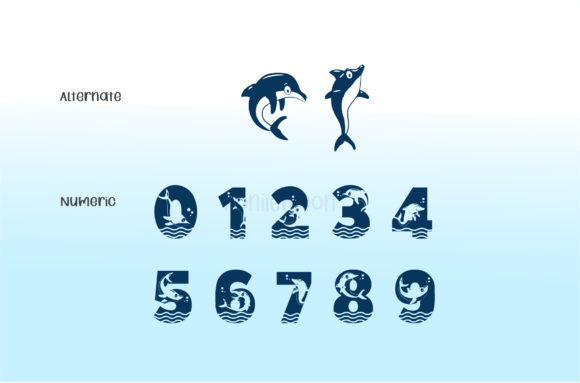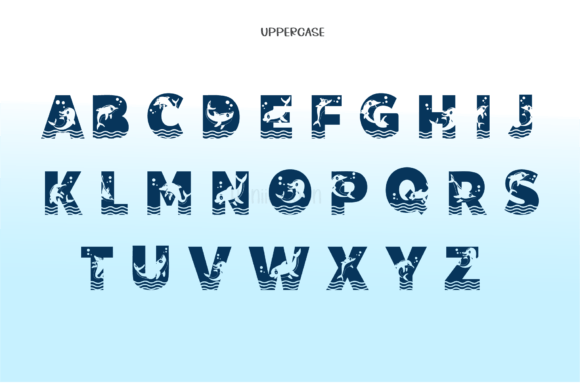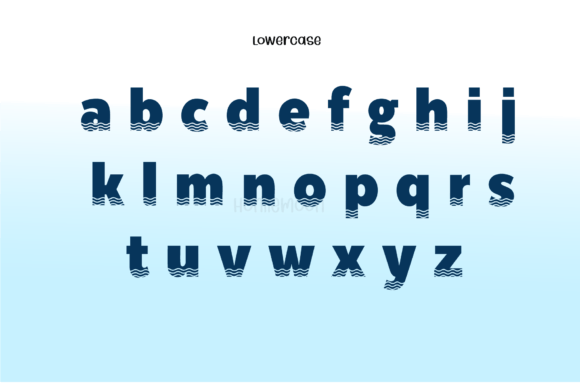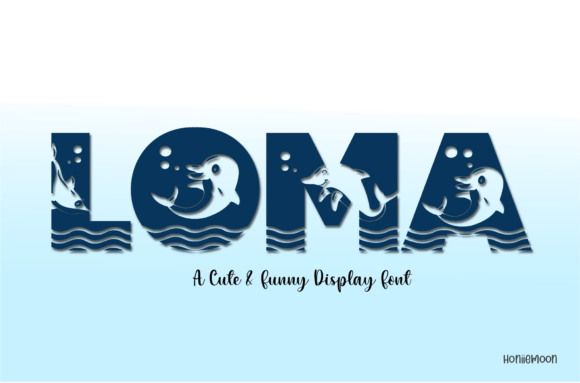
Introduction to Loma Font
Loma is a cool and fun decorative font.
It looks both cute and jolly and it will enhance each of your designs The only limit is your imagination.